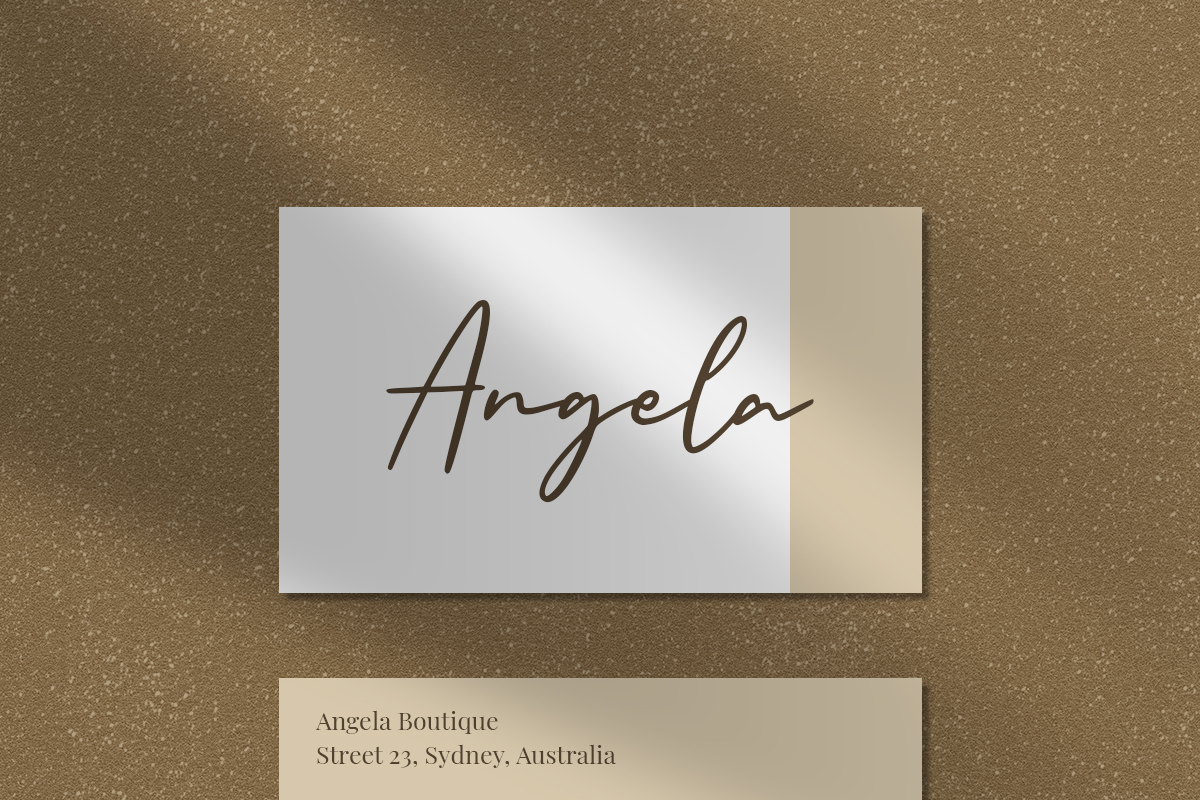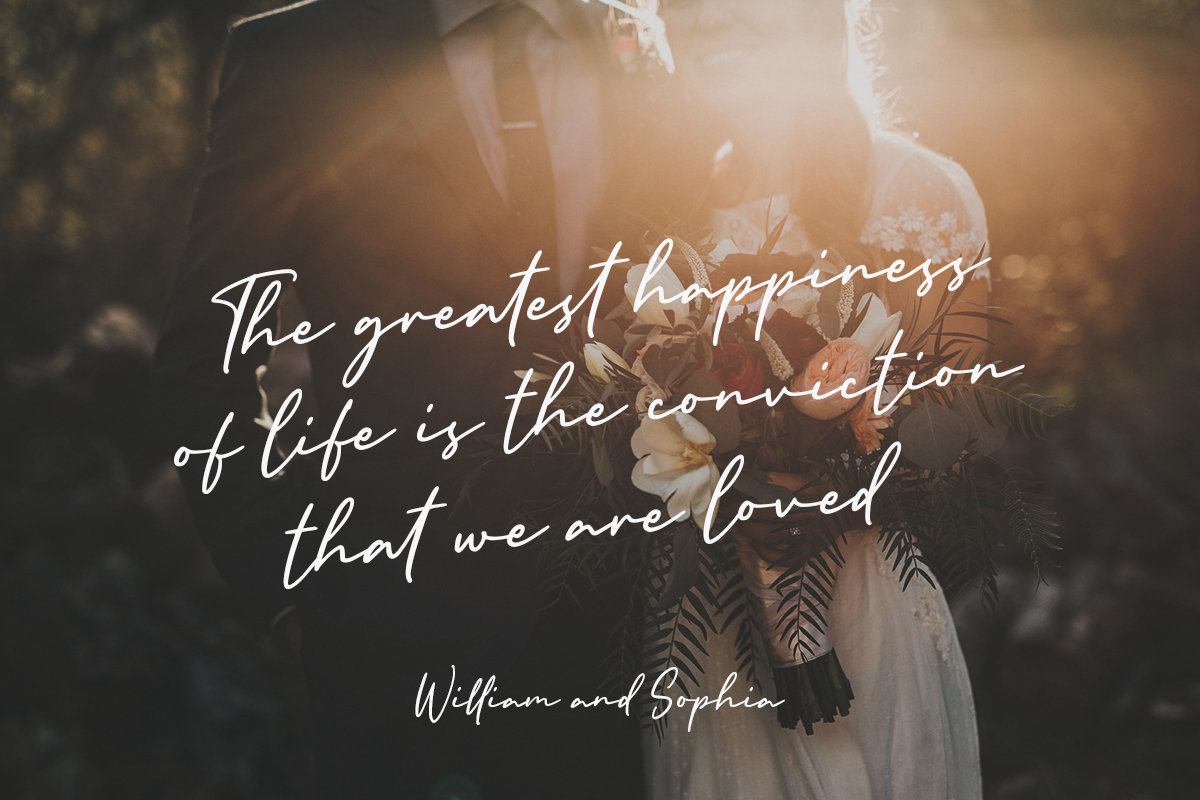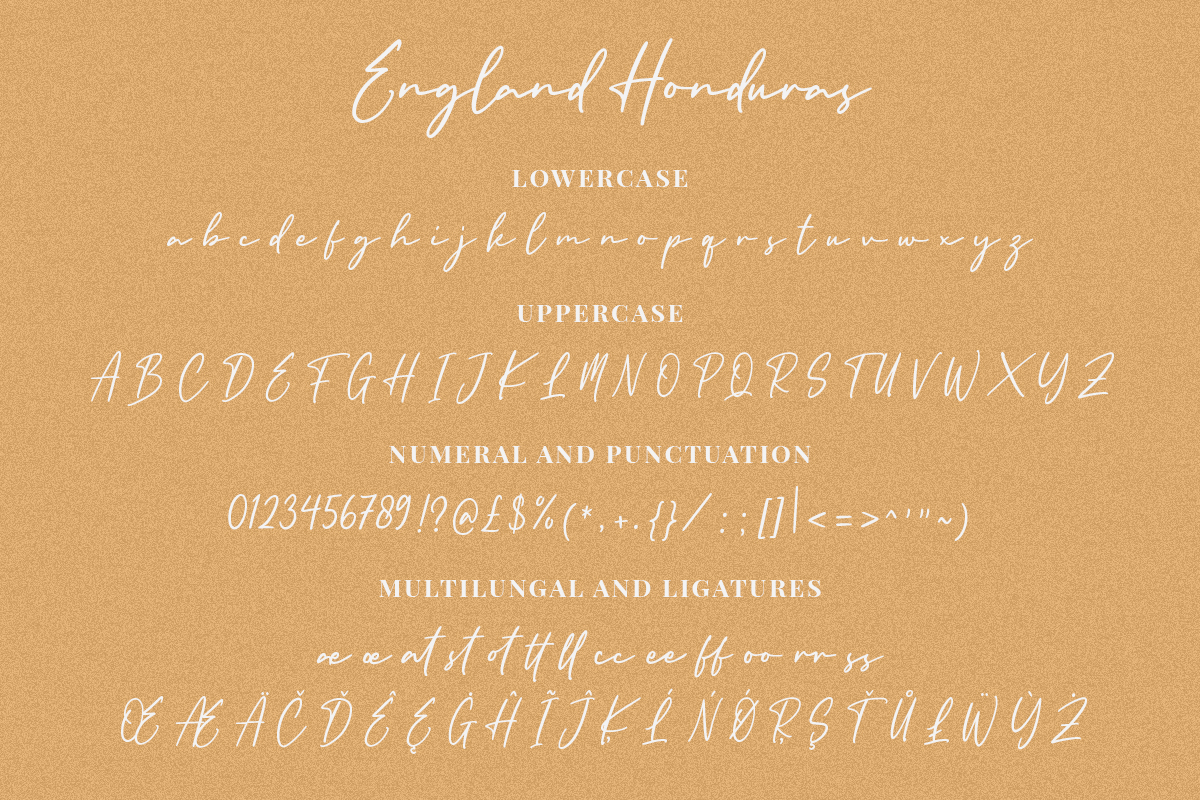
England Signature Free Font
England Signature Free Font very suitable to make an adorable invitation for a wedding, birthday, special day, and also perfect for your other project branding. This free typeface was designed by a talented Kong Font. If you like it don’t forget to check out the full version.